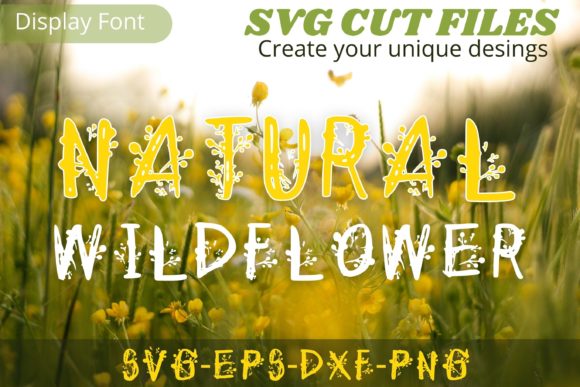
Indulge in the whimsical charm of Natural Wildflower, a decorative font that will transform your creative visions into breathtaking masterpieces. Embrace the allure of nature's artistry, as each stroke of this enchanting font blooms with the grace of a wildflower.
Imagine your wedding invitations adorned with the delicate elegance of Natural Wildflower, capturing the essence of your love story. Let your logos and branding exude a touch of the untamed, leaving an unforgettable impression on your audience.
Elevate your blog posts and social media captions with Natural Wildflower's captivating presence, evoking a sense of wonder in every reader. Craft invitations and greeting cards that blossom with warmth and heartfelt emotion, making every message a treasured keepsake.
Unleash your creativity with planners and photo albums adorned with Natural Wildflower's whimsical charm. Preserve your precious memories in a style that radiates joy and enchantment. Transform your decorations into works of art, where the flow of Natural Wildflower's lines weaves a captivating tale.
Join the ranks of discerning designers who have discovered the magic of Natural Wildflower. Experience the harmony of its curves, the fluidity of its strokes, and the captivating beauty it brings to every creation. Let Natural Wildflower be your muse, guiding you to design masterpieces that blossom with imagination and grace.